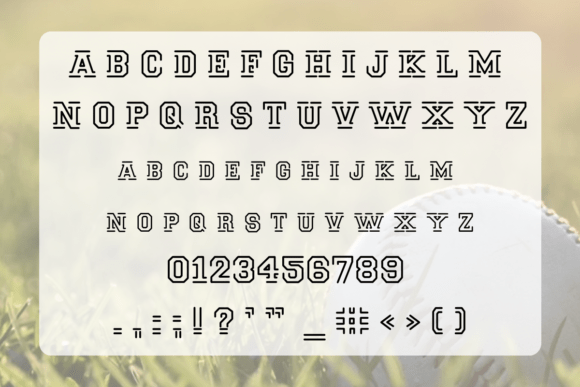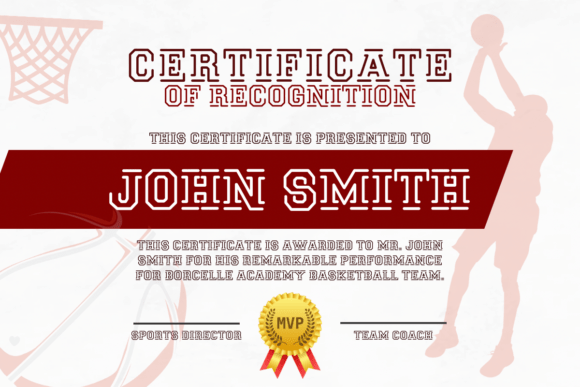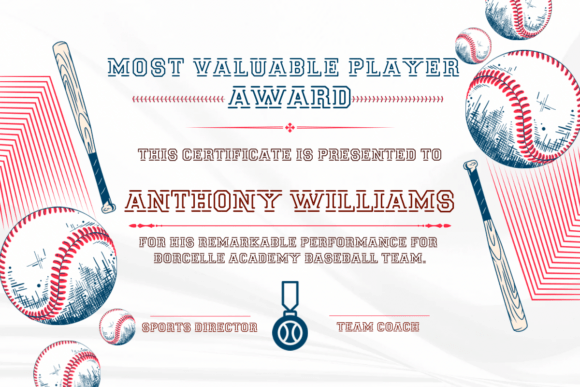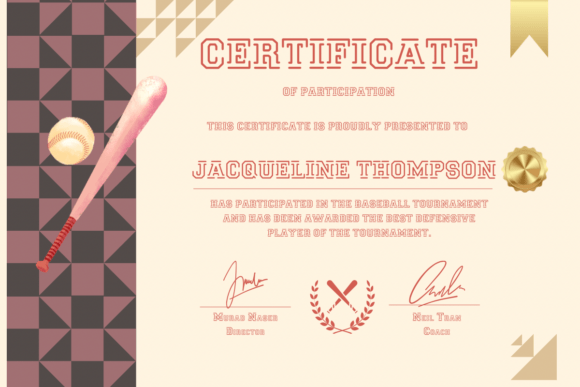
Introducing the Baseball School Font: A Collegiate Style Font for Creative Projects
Are you a designer, crafter, or DIY enthusiast looking for a unique and versatile font to elevate your creative projects? Look no further than the Baseball School Font, a college-style font that’s perfect for a wide range of applications. In this article, we’ll explore the features and benefits of this fantastic font, and show you how to make the most of it in your designs.
What is the Baseball School Font?
The Baseball School Font is a stylish and modern font that’s inspired by the classic typography of college and university branding. With its bold and sporty aesthetic, it’s perfect for creating eye-catching designs that evoke the spirit of competition and camaraderie. Whether you’re working on a school project, creating stationery, or designing social media posts, this font is sure to impress.
Uses for the Baseball School Font
One of the best things about the Baseball School Font is its versatility. Here are just a few ideas to get you started:
- Note-taking and journaling: Use the Baseball School Font to add a touch of personality to your notes, diary entries, and journals.
- Greeting cards and invitations: Create custom greeting cards, invitations, and announcements that stand out from the crowd.
- Banners and signs: Use the font to create bold and eye-catching banners, signs, and posters for events, sales, and promotions.
- Mugs, cards, and shirts: Add a personal touch to your mugs, cards, and shirts with custom text and designs.
- Stationery and paper crafts: Use the font to create custom stationery, stickers, and paper crafts that showcase your personality.
- Social media posts: Elevate your social media posts with custom graphics, quotes, and announcements that showcase your brand’s personality.
Benefits of the Baseball School Font
So why choose the Baseball School Font for your creative projects? Here are just a few benefits:
- Unique and stylish: The Baseball School Font is a one-of-a-kind font that’s sure to make your designs stand out.
- Easy to read: The font is clear and easy to read, making it perfect for body text and headlines.
- Versatile: Use the font for a wide range of applications, from digital designs to print projects.
- Customizable: Experiment with different colors, sizes, and styles to make the font your own.
Tips for Using the Baseball School Font
Here are a few tips to help you get the most out of the Baseball School Font:
- Experiment with colors: Try pairing the font with different colors to create unique and eye-catching designs.
- Mix and match: Combine the Baseball School Font with other fonts and graphics to create interesting and dynamic designs.
- Keep it simple: Don’t be afraid to keep things simple and use the font on its own for a clean and elegant look.
The Baseball School Font is a versatile and stylish font that’s perfect for designers, crafters, and DIY enthusiasts. With its bold and sporty aesthetic, it’s ideal for a wide range of creative projects, from note-taking and journaling to designing banners, signs, and social media posts. Whether you’re looking to add a touch of personality to your designs or create custom graphics for your brand, the Baseball School Font is a great choice. So why not give it a try and see what amazing creations you can come up with?